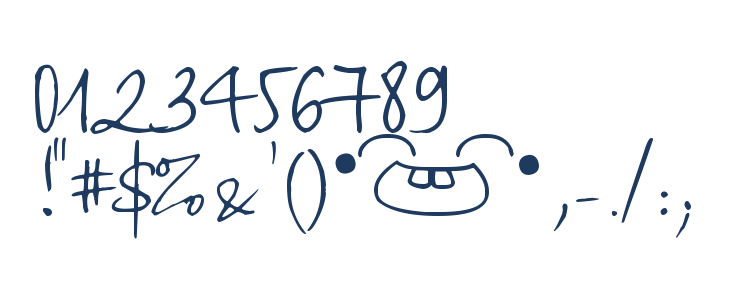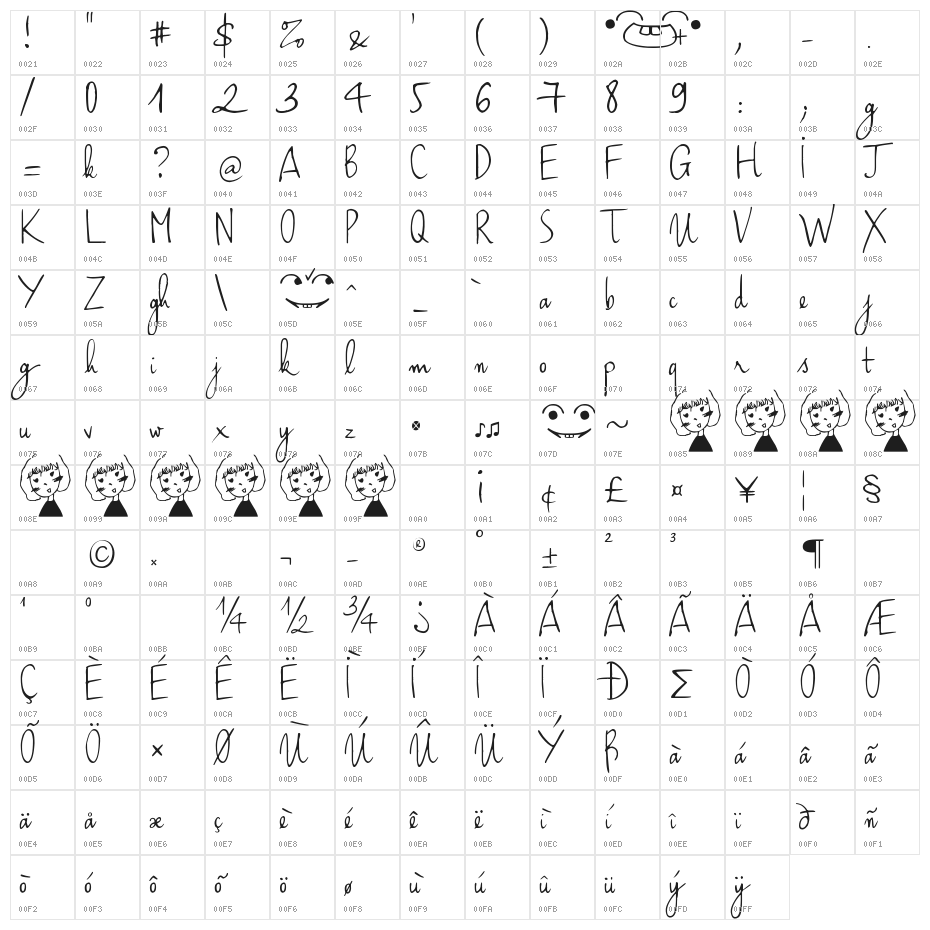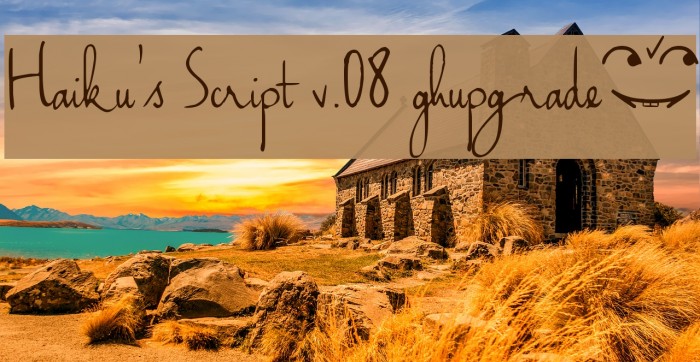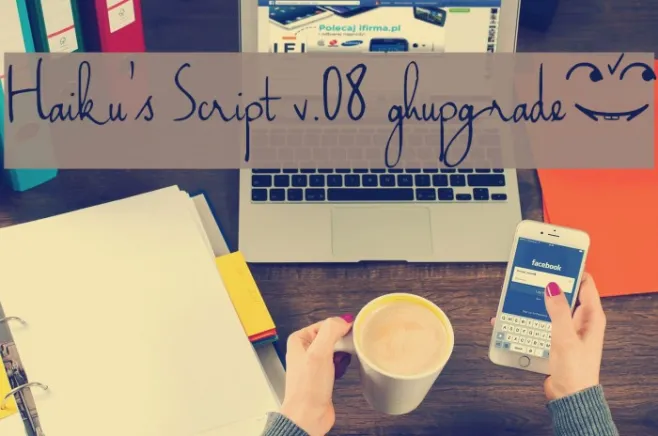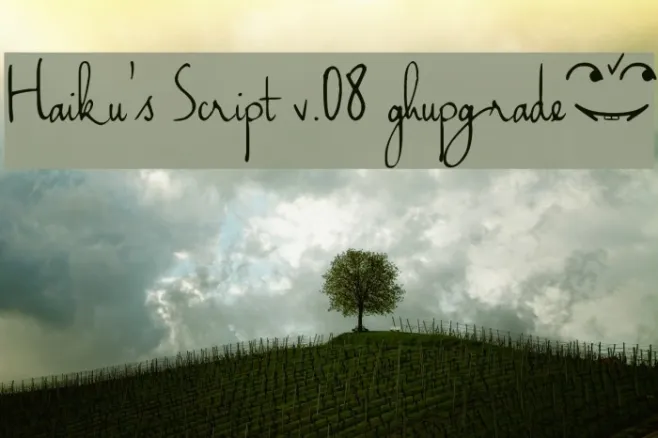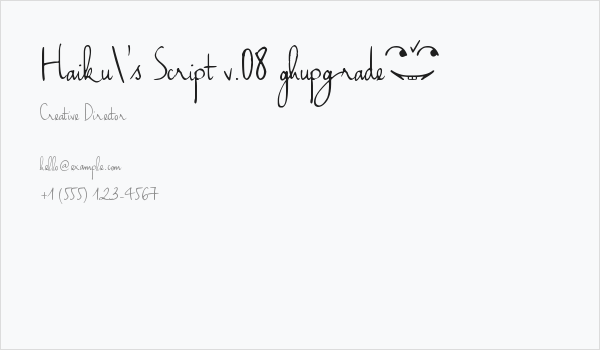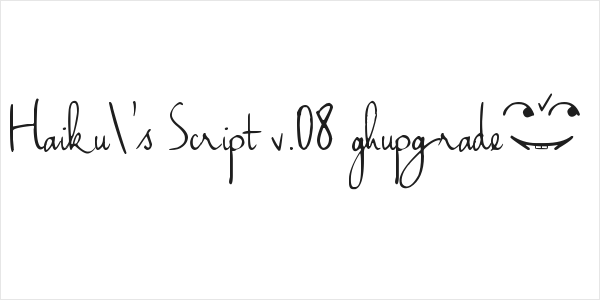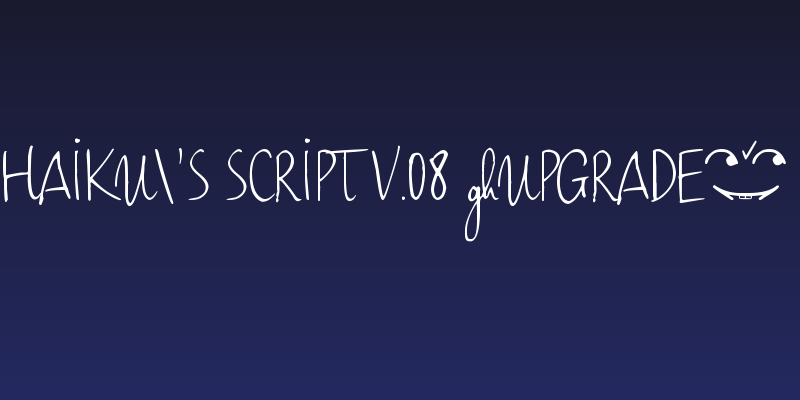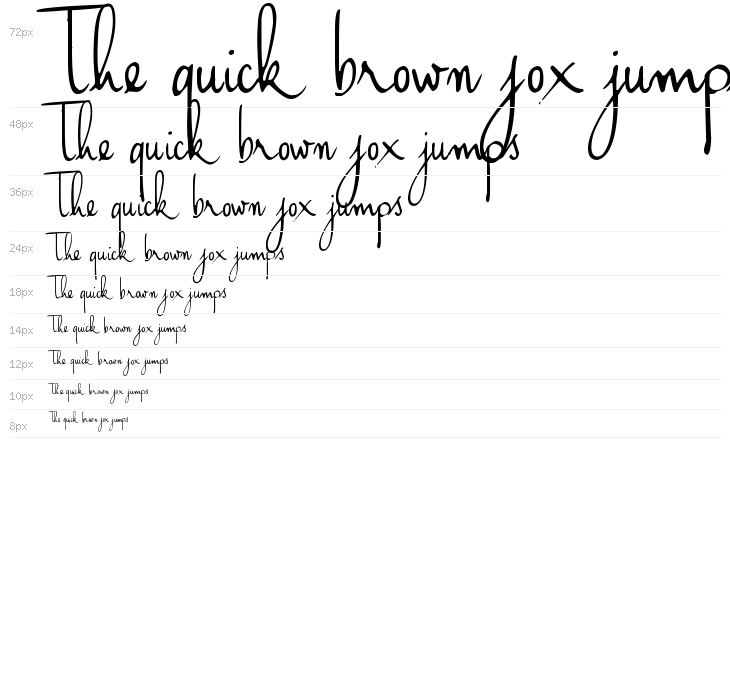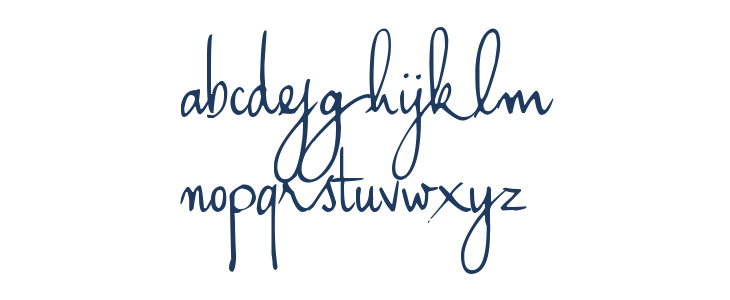
Haiku's Script v.08 [upgrade] Font
Haiku's Script v.08 [upgrade] Description
This font features a playful and whimsical handwritten style, characterized by its fluid and organic strokes. The uppercase letters are tall and slender, with a slight slant that adds a dynamic feel. The lowercase letters are more varied in height, with some letters extending below the baseline, enhancing the casual and informal appearance. The numerals are consistent with the overall style, maintaining the same playful and lively character. Special characters are creatively designed, adding to the font's unique personality. This font is perfect for projects that require a touch of creativity and fun, making it ideal for artistic and informal designs.
| Proposed Projects | Ideal for greeting cards, children's books, creative posters, and informal branding. |